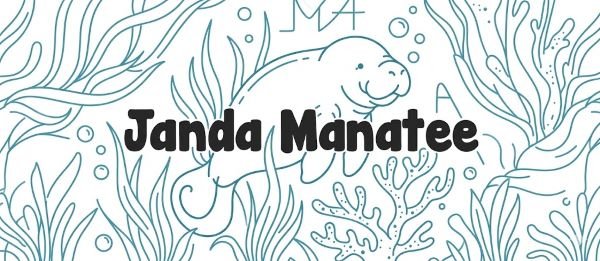
Janda Manatee Font by Kimberly Geswein is a free playful comic-style handwritten font that brings bubbly warmth to any design. Its rounded, friendly letterforms feel drawn with genuine affection, making every word inviting and full of character.
Available in two complementary styles — Solid and Bubble — the pairing gives designers an instant layering option. Use Solid for clean, confident display and Bubble for that extra dimensional softness that makes headlines pop with personality.
Style: Comic / Handwritten, Playful, 2 Styles (Solid & Bubble)